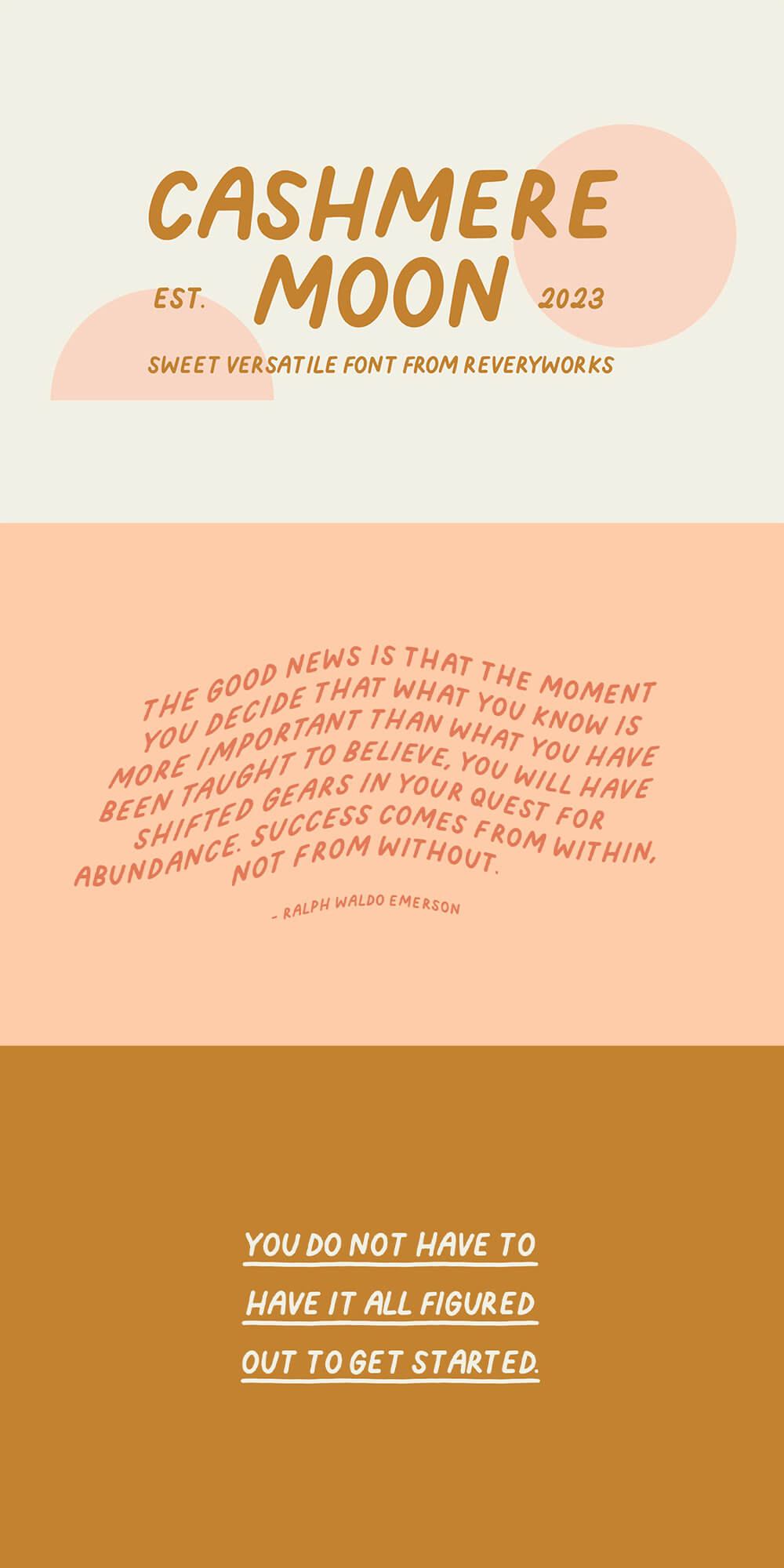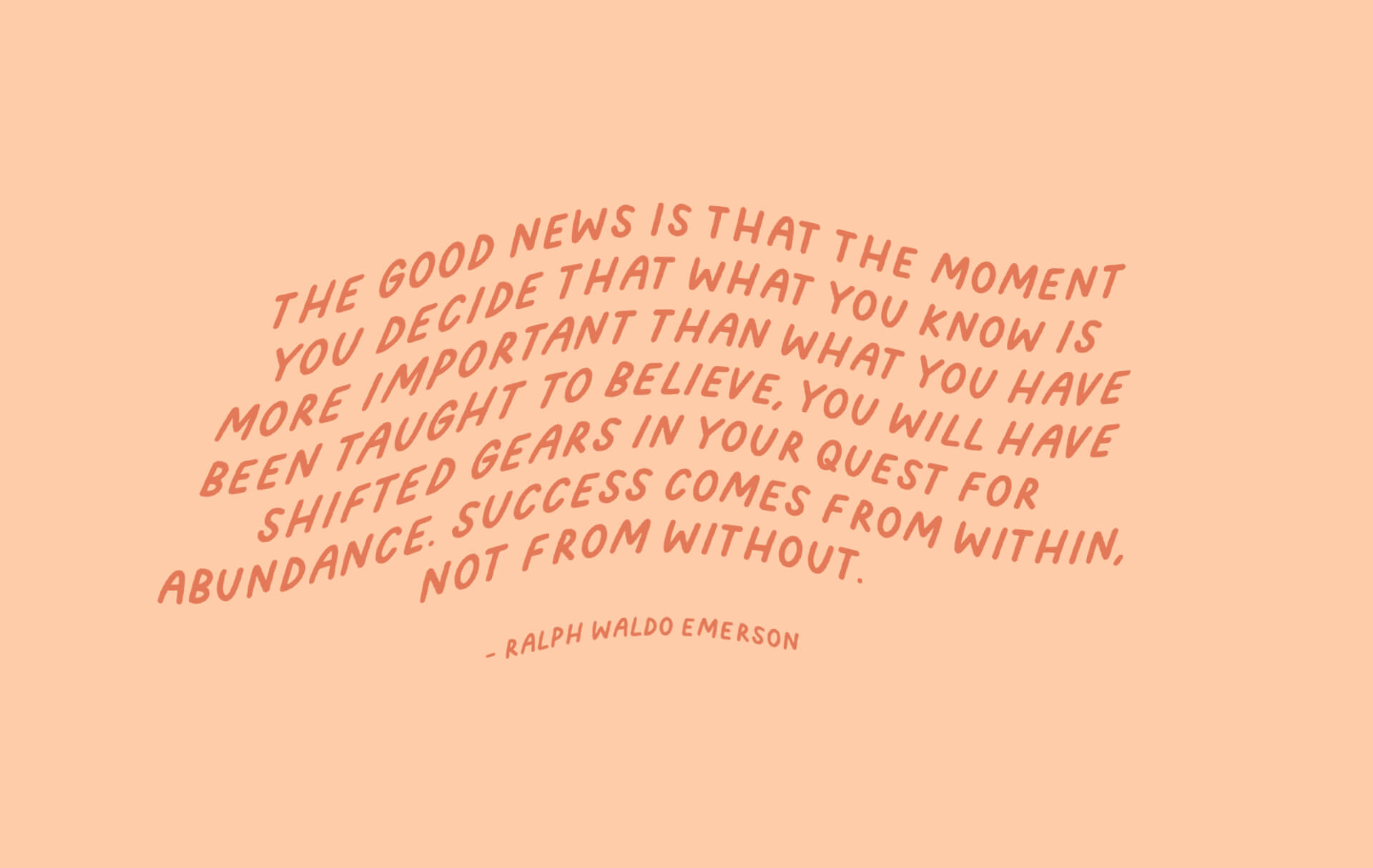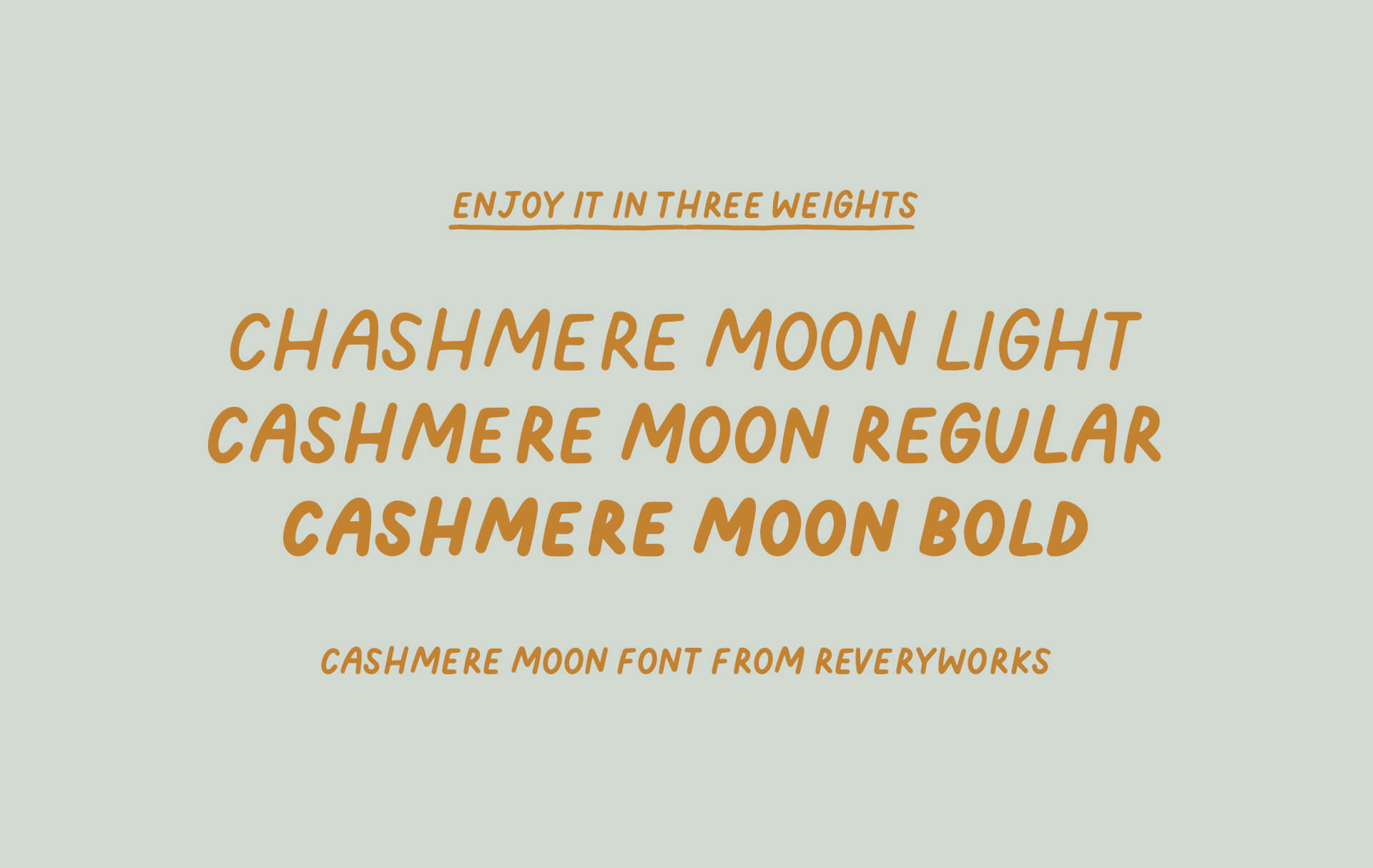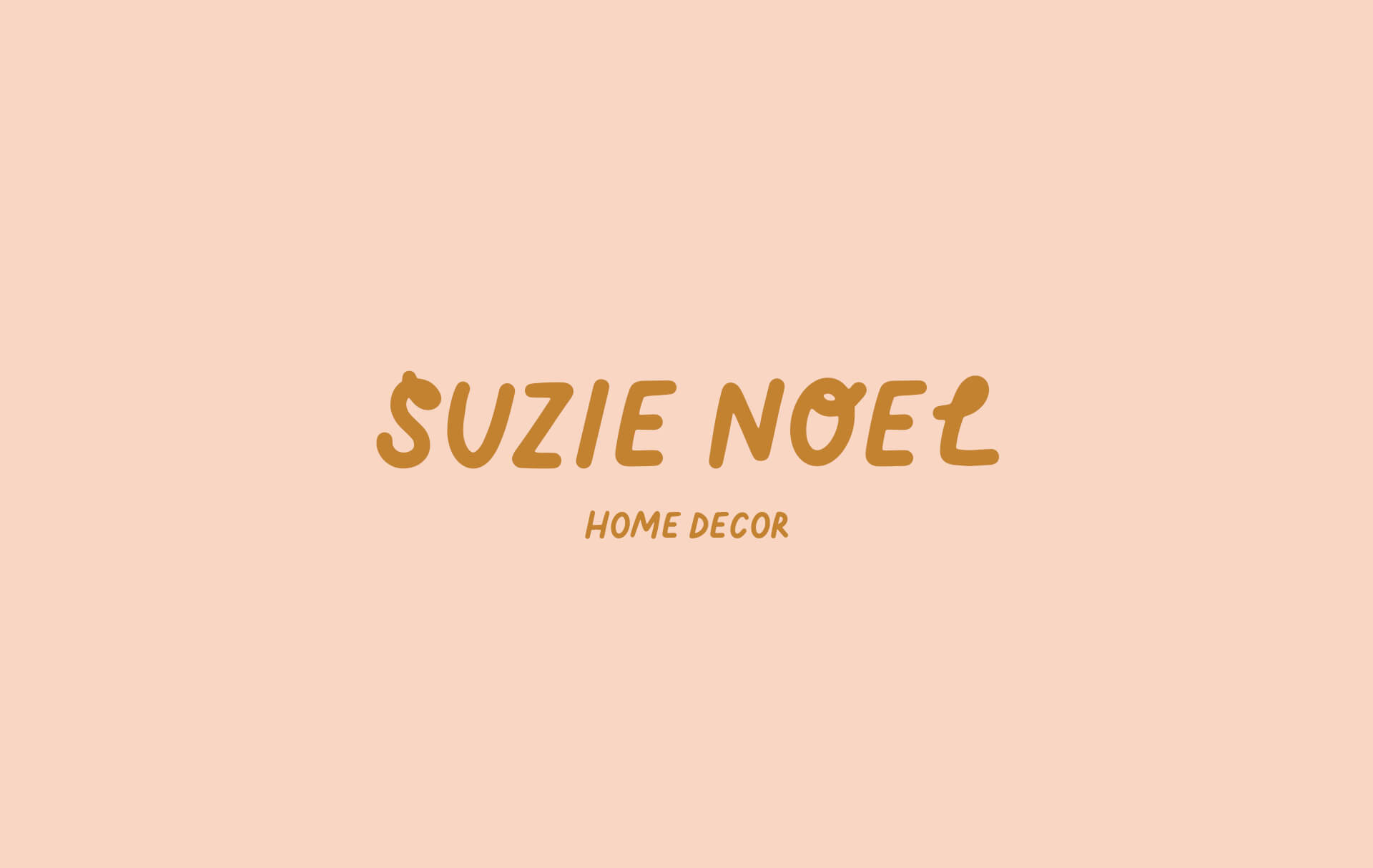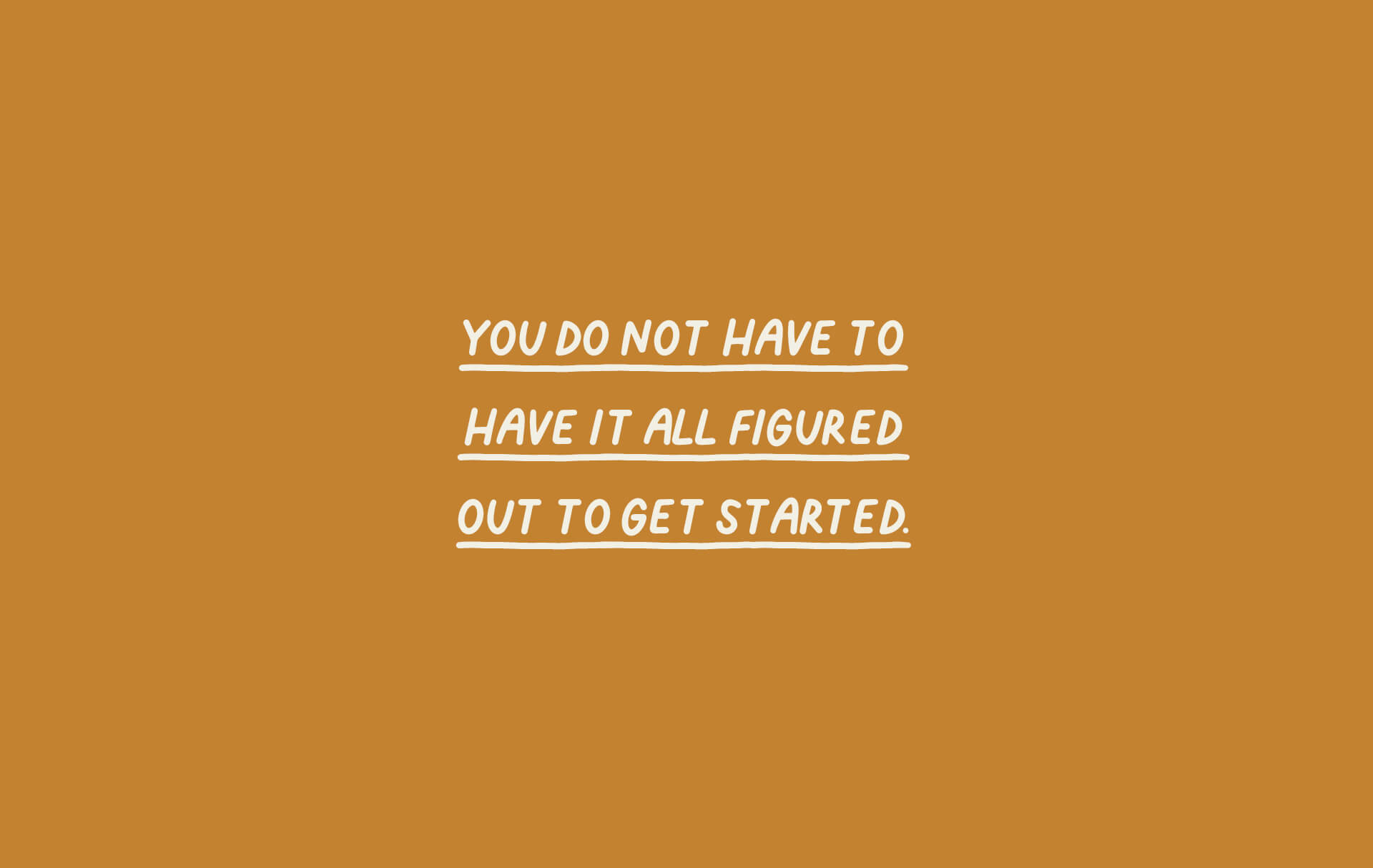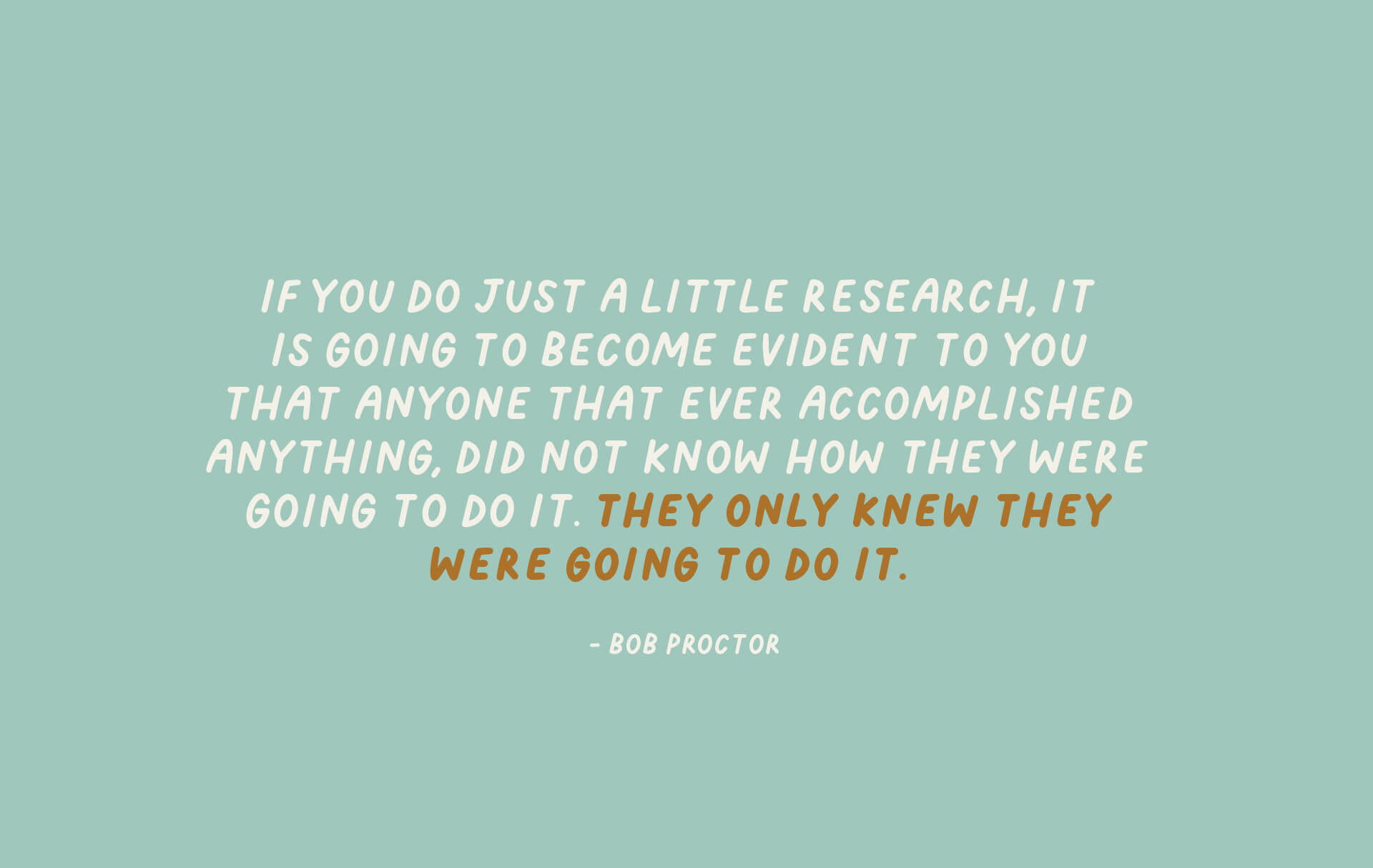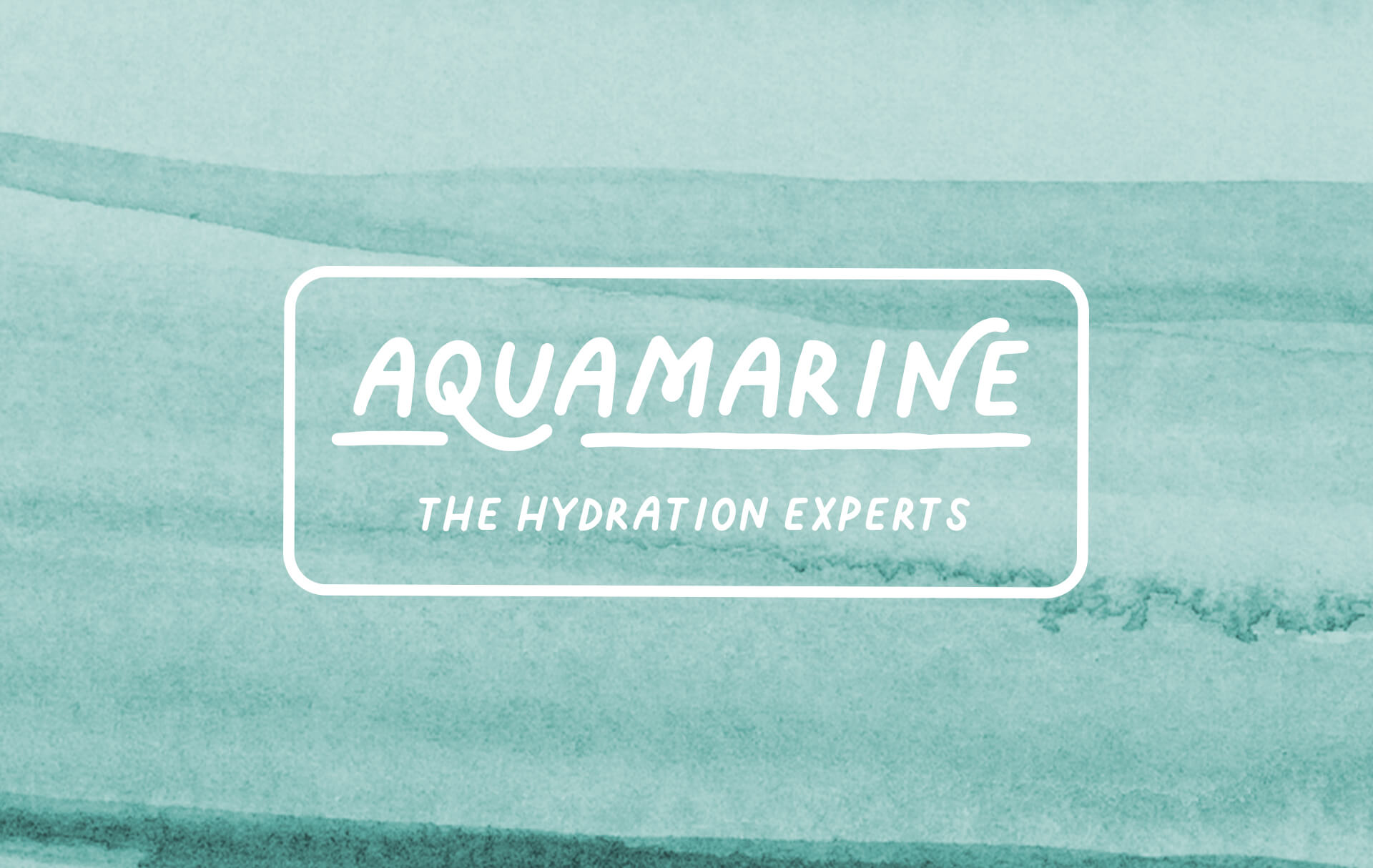
Cashmere Moon Font – Loaded with features!
Introducing Cashmere Moon – A sweet and versatile handwritten font that is loaded with features! Here are some tips on some of the countless ways you can use this cutie!
– Includes Minimal Curly Twirly Alternates (UPPER KEYSTROKES)
– Includes fancy shmancy alternate letters (UPPER KEYSTROKES)
– Includes 3 weights: light, regular and bold!
– Play around with the spacing to achieve different effects
– Use _ _ _ to insert hand drawn underline
– Looks fantastic in texts and paragraphs